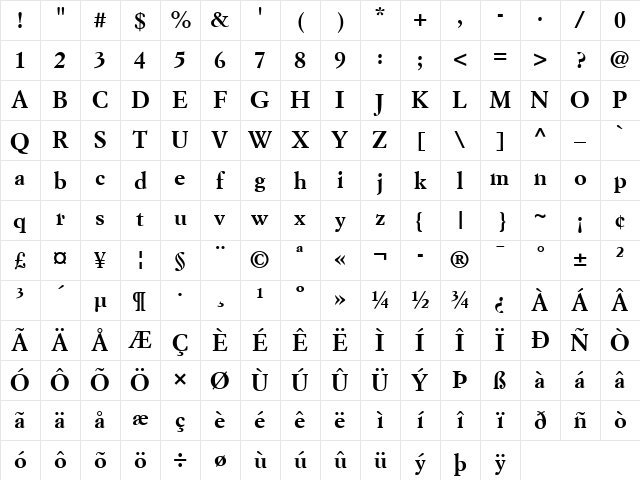
Complete SimonciniGaramond LT Bold glyph index. Displaying only characters natively supported by SimonciniGaramond LT Bold font.
SimonciniGaramond LT is a composed and adaptable typeface that performs quietly and consistently across a wide range of design contexts. Its bold stroke weight gives it real presence on the page.